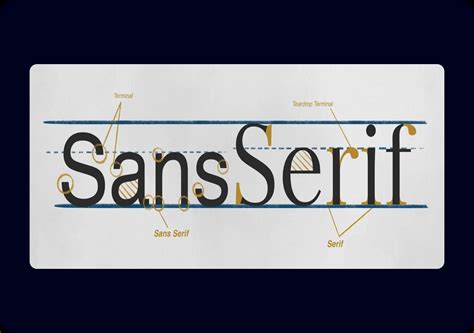
Letter Fonts Keyboard: The Best Fonts for Your Typing
Readers, have you ever found yourself staring at your keyboard, wondering if there’s a better way to choose the perfect font for your typing? You’re not alone! The right font can make all the difference in the readability and overall aesthetic of your writing. It can even influence the way your words are perceived. But with so many options available, how do you know which letter fonts keyboard is right for you?
As an expert in the world of digital content creation, I've spent countless hours analyzing different letter fonts keyboards and their impact on the online experience. Trust me, the right font choice can elevate your typing to a whole new level. Let’s explore the best letter fonts keyboard for your typing needs and discover why some are more suitable for specific tasks than others.
The Importance of Font Choice: A Visual Feast for the Eyes
Think of fonts as the wardrobe of your digital world. Each font has its own unique personality, expressing a distinct style and tone. Just like a well-chosen outfit can make you stand out, a strategic font selection enhances the visual appeal and readability of your text. The right font can capture attention, inspire emotions, and convey a message in a way that plain, generic fonts simply can't.
Consider these points:
- **Readability:** Clear, legible fonts make it easier to read and absorb information.
- **Brand Identity:** Consistent use of a brand font helps create a cohesive identity and strengthens brand recognition.
- **Emotional Impact:** Fonts can evoke specific emotions, from a sense of fun and playfulness to professionalism and trust.
- **Accessibility:** Choosing fonts that are easily accessible to a wide range of users, including those with visual impairments, is crucial for inclusivity.
Exploring the Best Letter Fonts Keyboard for Your Needs
The world of letter fonts is vast and varied, with a font for every mood and purpose. Let's dive into some of the most popular and effective letter fonts keyboards and learn why they’re so widely embraced.
1. Serif Fonts: A Classic Choice for Readability
Serif fonts, characterized by the small decorative lines (serifs) at the ends of their strokes, are known for their timeless elegance and excellent readability. They’re often associated with traditional, formal, and sophisticated writing. Serif fonts are a popular choice for print media, especially for long-form content like books, magazines, and newspapers. They’re designed to guide the reader's eye along the lines of text, enhancing readability and comprehension.
Popular serif fonts include:
- Times New Roman: A classic serif font, often used in academic and professional settings.
- Garamond: A versatile serif font with a slightly more decorative feel, perfect for elegant and sophisticated projects.
- Georgia: A readable serif font with a modern touch, ideal for both print and digital media.
- Palatino Linotype: A humanist serif font with a touch of elegance, often used for creative projects.
2. Sans Serif Fonts: Modern, Clean, and Adaptable
Sans serif fonts, lacking the tiny strokes found in serif fonts, are known for their clean, modern, and minimalist aesthetic. They’re a versatile choice for a wide range of applications, from website design and graphic design to user interfaces (UIs) and mobile apps. Sans serif fonts are often preferred for digital environments due to their enhanced readability on screens at various sizes.
Popular sans serif fonts include:
- Arial: A widely used, clean sans serif font, often found in everyday applications.
- Helvetica: A classic sans serif font, known for its simplicity and versatility.
- Roboto: A modern sans serif font designed for digital interfaces, providing optimal readability on screens.
- Open Sans: A versatile sans serif font with a friendly feel, suitable for both print and digital projects.
3. Script Fonts: A Touch of Elegance and Personality
Script fonts, inspired by traditional calligraphy, are characterized by their flowing, cursive-like strokes. They add a touch of elegance, sophistication, and a hint of personality to your writing. Script fonts are often used for invitations, wedding stationery, logos, and other creative projects.They're often the choice for creating a handwritten, personal, or artistic feel.
Popular script fonts include:
- Brush Script: A classic script font with a casual, handwritten feel.
- Bell MT: A decorative script font with a vintage, elegant touch.
- Pacifico: A playful, casual script font, perfect for adding a touch of fun to your projects.
- Lobster: A bold, whimsical script font, often used for headlines and titles.
4. Display Fonts: Making a Bold Statement
Display fonts, designed for large-scale applications like headlines, titles, and posters, are known for their bold, eye-catching, and decorative styles. They're often used to make a strong visual impact and convey a specific message or emotion. Display fonts are less commonly used for body text but excel in creating a memorable and impactful visual experience.
Popular display fonts include:
- Impact: A bold, condensed sans serif font, commonly used for headlines and titles.
- Stencil: A bold, playful sans serif font with a stencil-like effect, often used for informal projects.
- Cooper Black: A bold, decorative serif font, often used for vintage-inspired designs.
- Bebas Neue: A bold, geometric sans serif font, ideal for creating a modern and edgy look.
Understanding Font Styles and Variations
Within each font category, you’ll find a range of styles and variations. These variations add nuance and allow you to fine-tune your font selection even further.
1. Font Weights: From Light to Bold
Font weight refers to the thickness of the font’s strokes. It can range from thin and light to bold and heavy. Different weights can convey different emotions and levels of emphasis. Light weights are often used for body text, while bold weights are ideal for headlines and titles. Using font weight can enhance the hierarchy of information in your writing, guiding the reader's attention to key points.
2. Font Sizes: Optimizing Readability
The size of your font plays a crucial role in readability, particularly when it comes to screen-based content. Choosing the right font size ensures that your text is easily readable on various screen sizes, from smartphones to laptops to desktops. This can be achieved by using responsive design principles.
3. Font Spacing: Adjusting for Visual Appeal
Font spacing, often referred to as leading, kerning, and tracking, influences the visual flow and readability of your text. Proper spacing ensures that letters and words are not crammed together and that lines of text are not too close or too far apart. Experimenting with different spacing options can help improve the overall aesthetic appeal of your content.
Common Letter Fonts Keyboard Mistakes to Avoid
While choosing the perfect font is an exciting part of content creation, it's crucial to be mindful of common mistakes that can hinder readability and detract from the overall impact of your writing.
1. Overusing Fonts: Keep It Simple, Stylish
Resist the temptation to use too many different fonts in your content. Too many fonts can create visual chaos and distract from your message. Stick to a few select fonts, ideally two or three maximum, to maintain consistency and visual appeal.
2. Choosing the Wrong Size: Don't Strain Your Readers' Eyes
Choosing the wrong font size can strain the eyes and make your content difficult to read. Use larger font sizes for headlines and titles to grab attention and smaller sizes for body text for easy readability.
3. Mismatched Font Combinations: Keep It Harmonious
Not all fonts are created equal. Some font combinations work beautifully together, while others can clash and create an unpleasant visual effect. When pairing fonts, consider factors like font style, weight, and overall aesthetic to ensure a harmonious blend.
4. Ignoring Accessibility: Make It Readable for Everyone
Choose fonts that are accessible to a wide range of users, including those with visual impairments. Consider factors like font weight, contrast, and font size to ensure that your content is readable for everyone.
Letter Fonts Keyboard: FAQs
1. What are the best fonts for websites?
The best fonts for websites depend on the website’s purpose and target audience. For readability, sans serif fonts like Arial, Helvetica, and Roboto are popular choices. Serif fonts like Times New Roman and Georgia are also suitable for website content. Consider using a combination of sans serif and serif fonts for headlines and body text to create visual interest.
2. Which fonts are best for resumes?
Resumes should be professional and easy to read. Serif fonts like Times New Roman, Garamond, and Georgia are often preferred for resumes as they convey a sense of tradition and formality. Sans serif fonts like Arial and Helvetica can also be used, but should be selected in a clean and legible style.
3. How do I choose the right font for my project?
Consider the purpose of your project, the target audience, and the overall message you want to convey. For formal documents, choose a classic serif font. For modern, clean designs, opt for a sans serif font. For creative projects, explore script and display fonts.
The right letter fonts keyboard can transform your writing, enhancing its visual appeal, improving readability, and conveying a specific message or mood. Remember to choose fonts that are appropriate for your project, target audience, and overall message. And don’t forget to consider factors like font style, weight, size, and spacing to ensure that your content is visually appealing and easily accessible to everyone. So, go forth, experiment with different letter fonts keyboards, and discover the fonts that will elevate your typing to a whole new level! And be sure to check out our other articles for more tips on content creation and digital design.